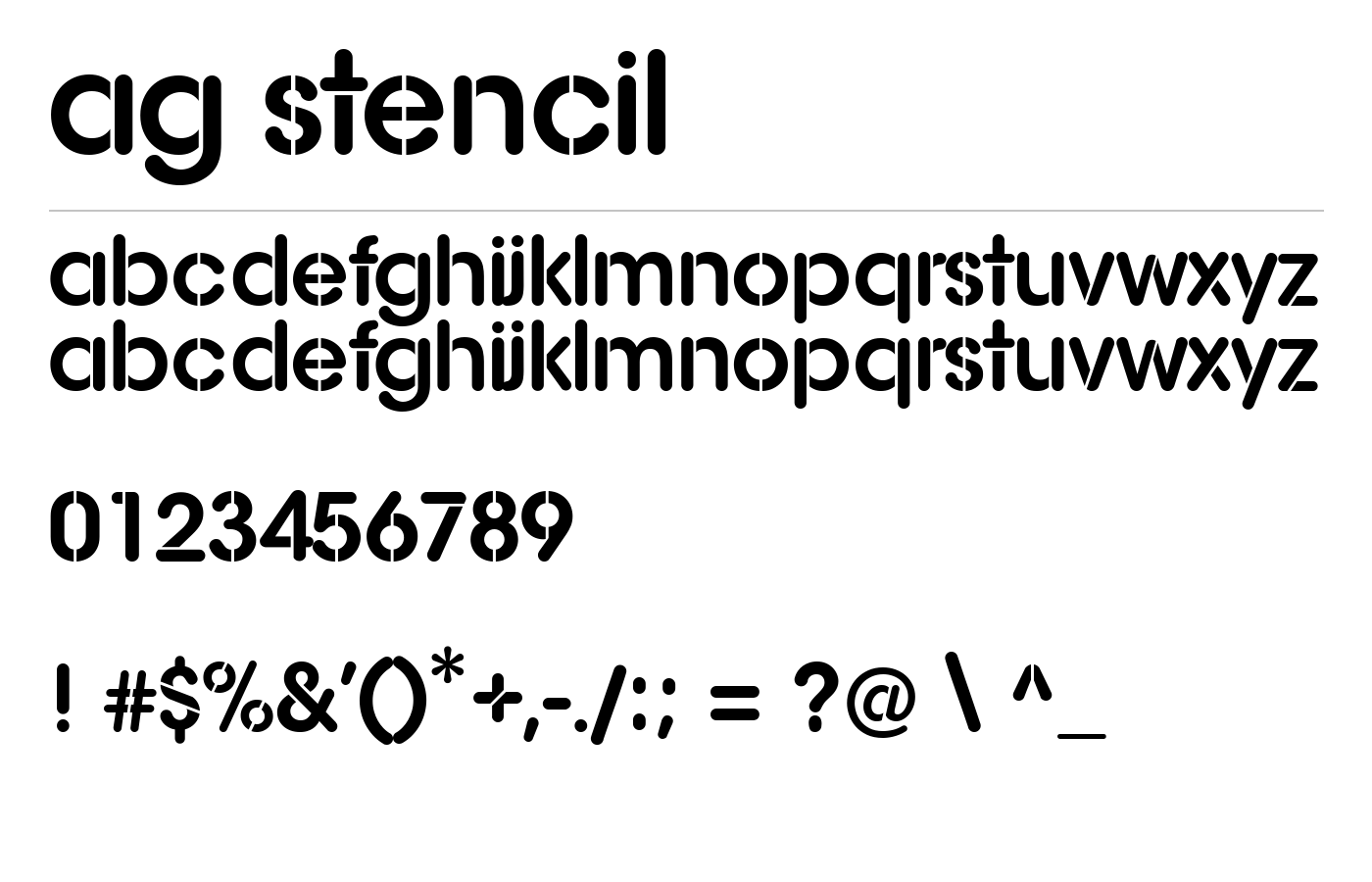
AG Stencil is a bold, geometric sans serif font with a modern and industrial feel, characterized by its clean, rounded letterforms segmented by stencil cuts. Its consistent weight, high x-height, and evenly spaced shapes make it highly readable and impactful, ideal for eye-catching headlines, logos, and packaging. This font’s unique stencil style brings a contemporary, versatile edge perfect for branding that aims to stand out with clarity and style.
AG Stencil Font
About AG Stencil Font
| Font family | AG Stencil Font |
| Designer | yong // oneonezero |